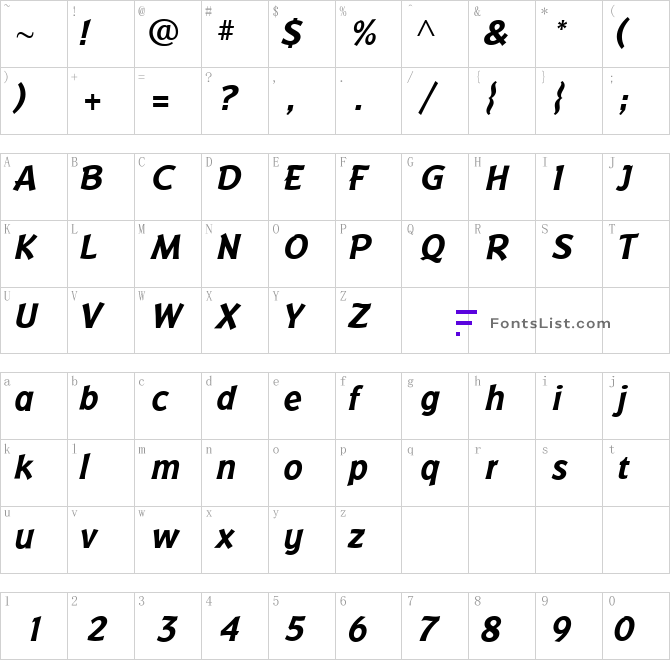
- Font Name:BadgerBoldItalic
BadgerBoldItalic.ttf is a very beautiful artistic font, BadgerBoldItalic.ttf is widely used in the design and printing of various books and pictures,BadgerBoldItalic.ttf has a strong visual impact,BadgerBoldItalic.ttf is a commonly used font in newspapers, magazines and books, and is used in posters, e-commerce Poster design, store design, logo design, font design and other fields.BadgerBoldItalic.